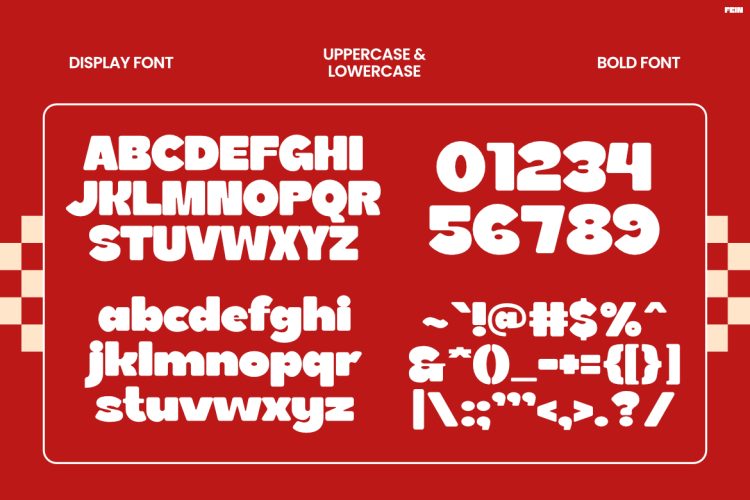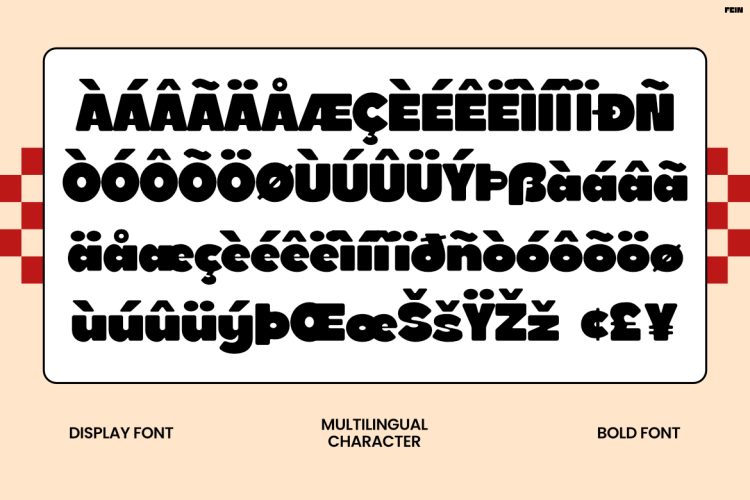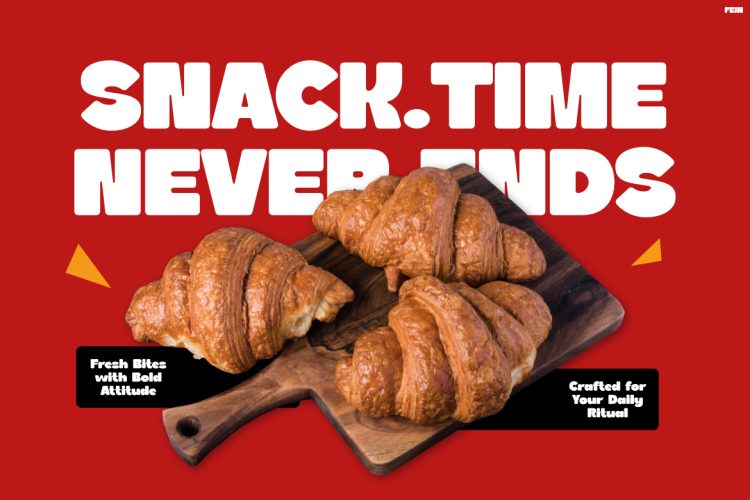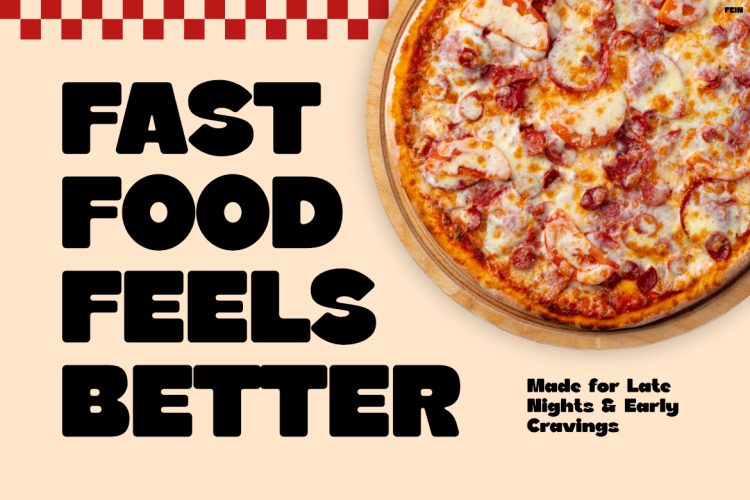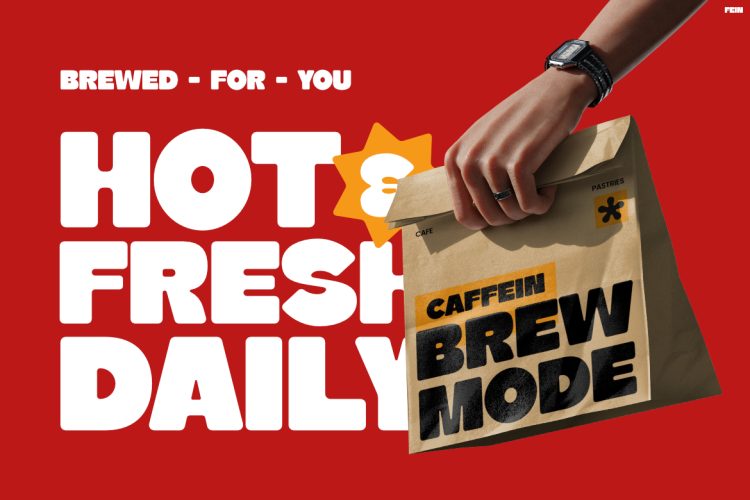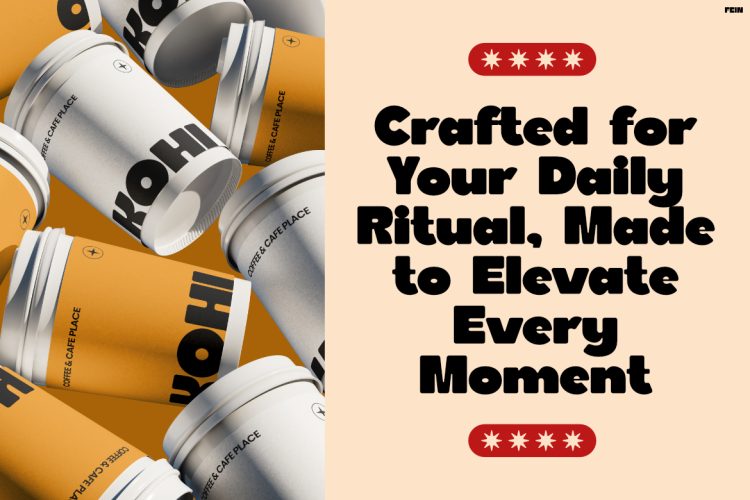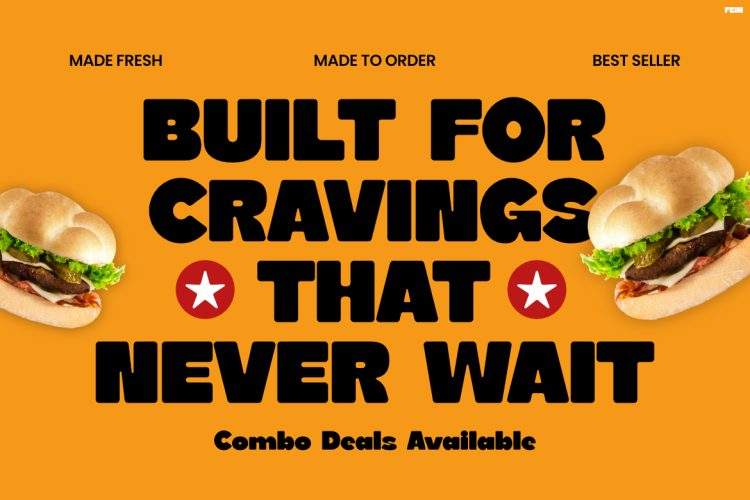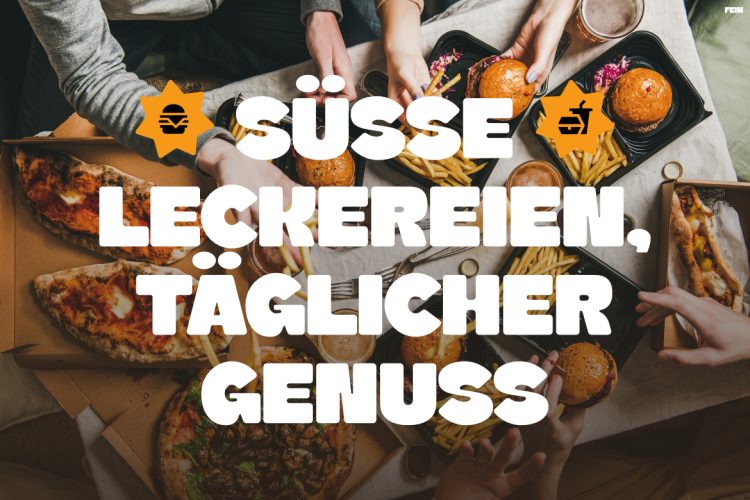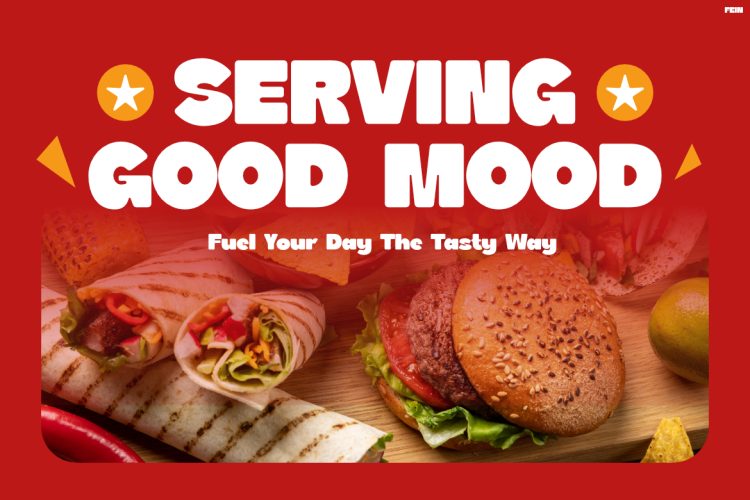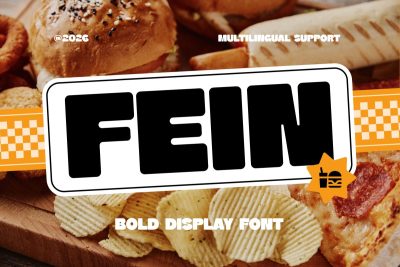
Fein โ Bold Street Food Display Font
Instagram Font Fein is a bold, high-impact display font designed to grab attention instantly with its chunky shapes and playful street-style energy. Moreover, it features strong letterforms and thick strokes that create a powerful visual punch. As a result, every design feels modern, fun, and irresistibly eye-catching. In addition, its slightly compressed structure enhances readability while still maintaining a loud and confident personality. Not only that, but this font also brings a fresh, energetic vibe that perfectly matches fast-paced food visuals. Therefore, from burger promos to snack campaigns, Fein transforms simple text into a mouthwatering visual experience. With support for 67 languages, it ensures your creativity can reach audiences worldwide.
Instagram Font Fein combines bold typography with a playful urban vibe, making it ideal for high-energy designs. Furthermore, the font includes strong uppercase characters and dynamic spacing, which help create a striking visual rhythm. In addition, its multilingual glyph support allows for seamless use across global branding projects. Because of its thick and rounded structure, it delivers a friendly yet assertive tone. As a result, it works perfectly for designs that need to stand out quickly. Whether youโre creating posters, menus, or social media content, Fein consistently delivers a vibrant and engaging look. Consequently, your visuals will feel fresh, trendy, and full of flavor.
This font is perfect for food brands, fast food businesses, street food vendors, cafes, and restaurants. Additionally, it is highly suitable for snack packaging and promotional campaigns. Moreover, content creators and social media marketers will benefit from its bold, scroll-stopping style. Not only that, but entrepreneurs building Instagram brands can also use it to create strong visual identities. Therefore, itโs an excellent choice for posters, advertisements, banners, and branding projects that require a fun and energetic feel.